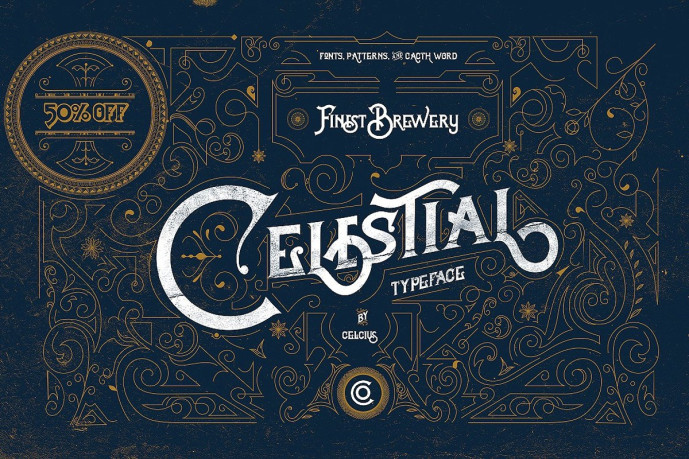
Celestial Vintage Font
Designer: Fortunes Co
Celestial Vintage Font is handmade Victorian handlettering, which is combining modern and classic typography with some awesome features. Yes we back to early 1800s, bring classic touch on this decade.